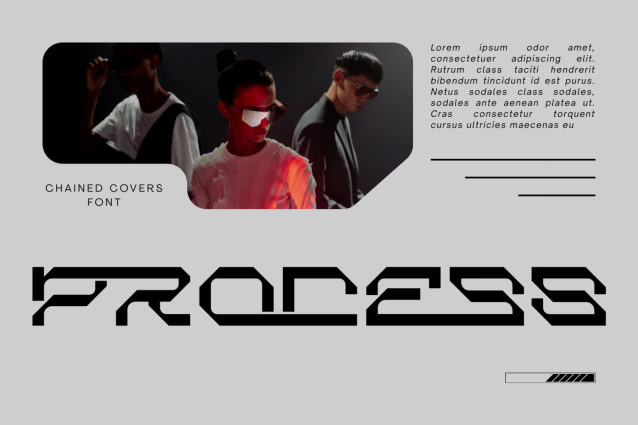
Chained Covers – Futuristic Font
Chained Covers – Futuristic Font is a bold futuristic display font designed with precision, power, and innovation in mind. Featuring geometric letterforms, sharp chamfered corners, and modular construction, this typeface captures the essence of cyberpunk aesthetics, industrial engineering, and next-generation technology. Every character is carefully crafted to deliver a clean, mechanical appearance while maintaining excellent readability and a striking visual presence.
With its bold structure and modern sci-fi personality, Chained Covers is ideal for technology branding, gaming titles, esports logos, futuristic interfaces, robotics, AI projects, automotive branding, digital products, movie posters, album covers, packaging, and modern visual identities. Whether used for powerful headlines or distinctive logo designs, Chained Covers delivers a confident, high-tech look that stands out across both digital and print media.